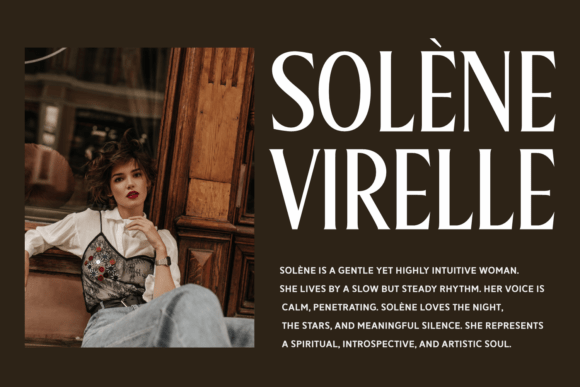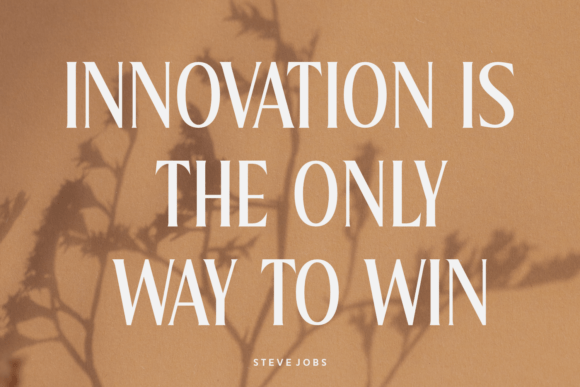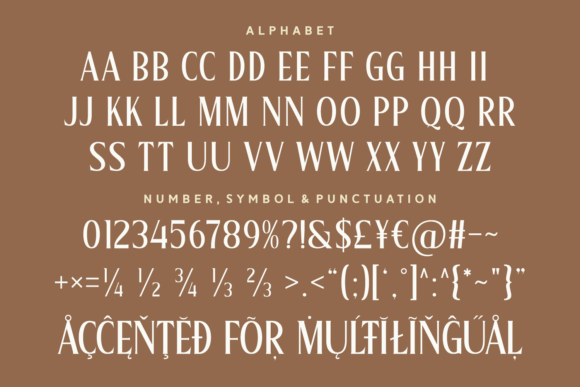
Introduction to Ethereal Dreams Font
Have you ever stared at a blank canvas, struggling to find the perfect font to bring your creative vision to life? For designers, this is a moment of truth – where the right typography can make or break the entire project. That’s where the Ethereal Dreams Font comes in – a modern and elegant serif font that captures sophistication with a timeless edge.
Imagine a font that effortlessly elevates your design from ordinary to extraordinary, perfect for fashion editorials, branding, wedding invitations, and luxury packaging. With its tall, refined letterforms and balanced contrast, the Ethereal Dreams Font is a high-quality design resource that’s sure to leave a lasting impression. Whether you’re working on a creative project or simply looking for a stylish touch, this font is a must-have in your design arsenal.
Key Features of Ethereal Dreams Font
- High-quality, elegant design ideal for creative projects, including digital art, graphic design, and web design.
- Includes a comprehensive set of characters, including uppercase and lowercase letters, numbers, and punctuation marks.
- Perfect for designers looking for a unique, ethereal design element to add a touch of magic to their creative projects.
Honest Review: Ethereal Dreams Font
As a designer, I’m always on the lookout for high-quality design resources to elevate my creative projects. Recently, I stumbled upon the Ethereal Dreams Font, and I’m excited to share my honest review.
- ✨ Unique and whimsical design style that’s perfect for dreamy or ethereal-themed projects.
- ⚠️ Limited font styles and weights may not be suitable for complex or multi-faceted designs.
- ⚠️ Some users may find the font’s whimsical style too busy or overwhelming.
Overall, I’m impressed with the Ethereal Dreams Font’s unique design style and high-quality vector files. While it may not be suitable for every project, it’s an excellent choice for designers looking to add a touch of whimsy and fantasy to their work.
Use the Ethereal Dreams Font for your next creative project, such as a blog post, social media graphic, or marketing material. Experiment with different font sizes, colors, and styles to create a unique look. You can also pair the font with other design resources to create a high-quality design.
The Ethereal Dreams Font is a versatile design resource that can be used for a variety of purposes, including:
- Blog posts and articles
- Social media graphics and ads
- Marketing materials and brochures
- Wedding invitations and event graphics
Alternatives to Ethereal Dreams Font